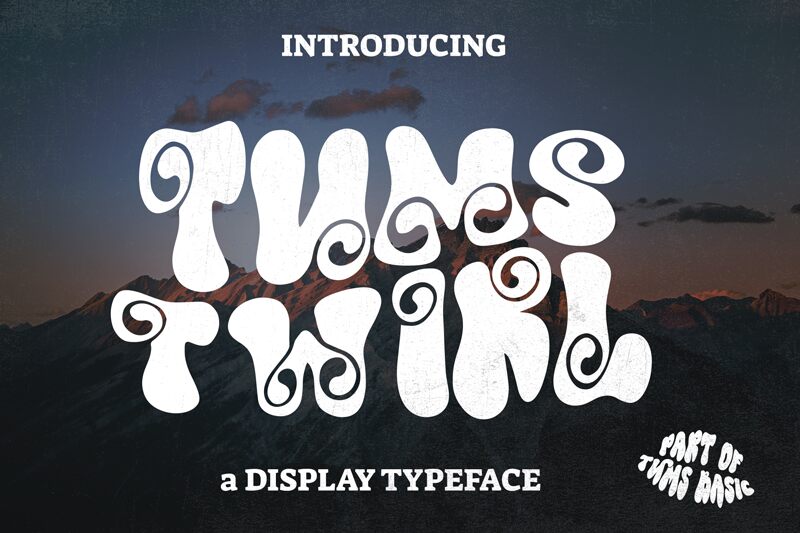
Tums Twirl
Tums Twirl, the groovy extra-bold display font designed by Dianhaniff, is perfect for projects that require a touch of retro flair. Its playful curves and bold weight make it ideal for eye-catching headlines, posters, and advertisements. The font's unique style lends itself well to a variety of design projects, from album covers to party invitations. With Tums Twirl, you can add a fun and funky element to your designs that will grab attention and leave a lasting impression.